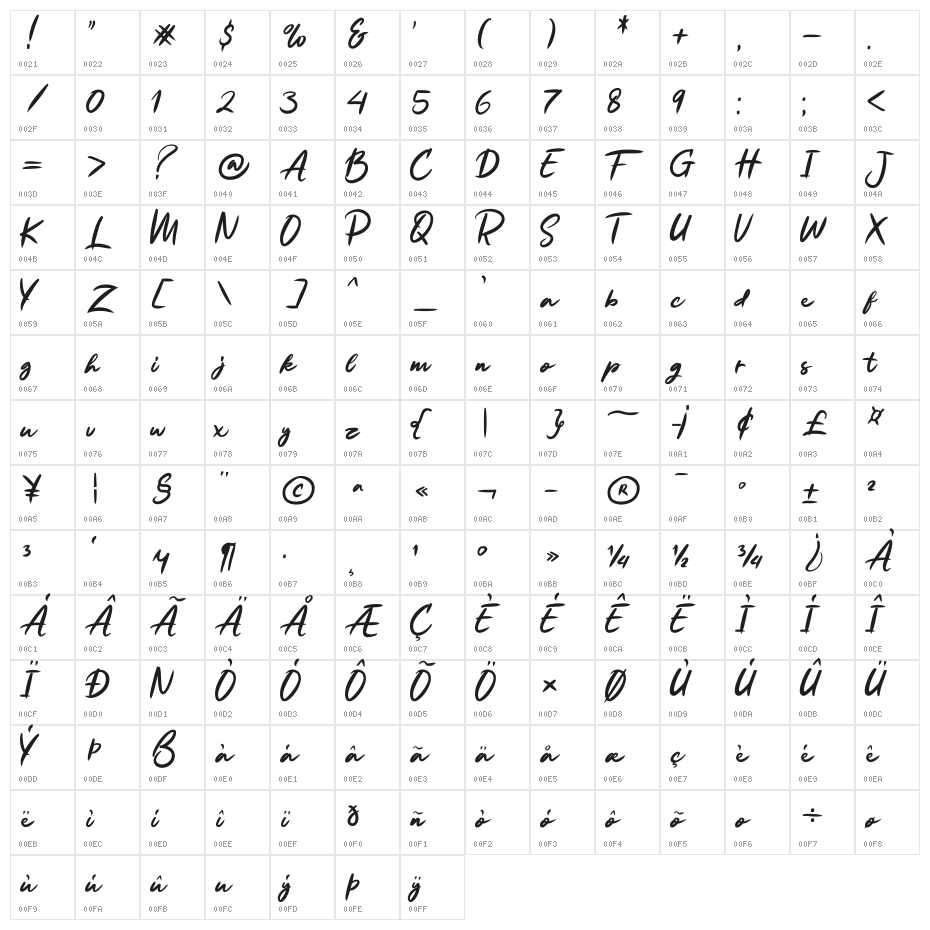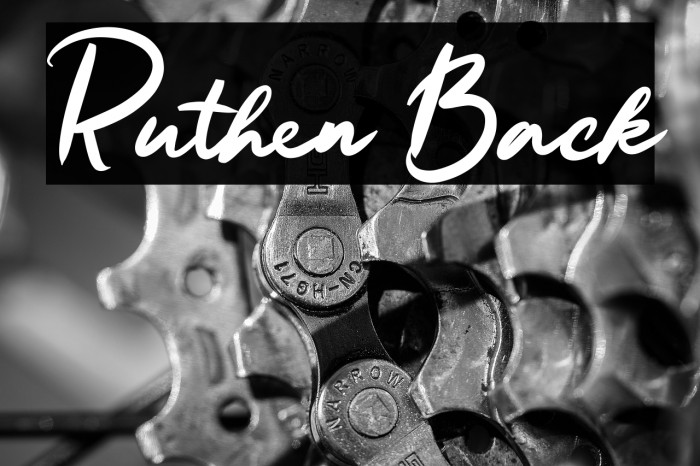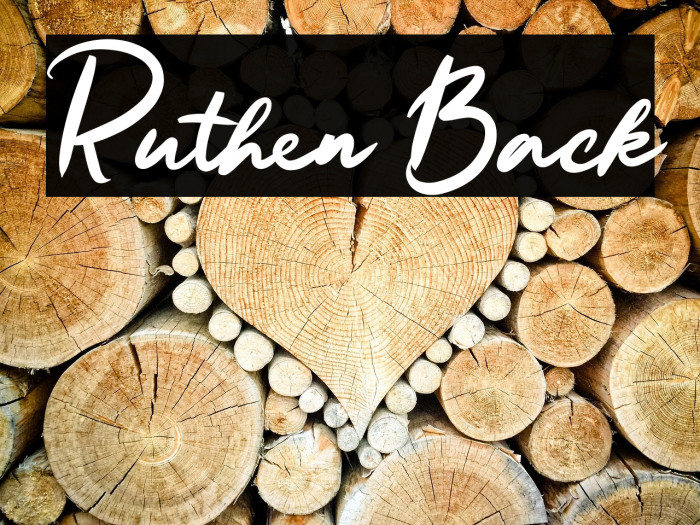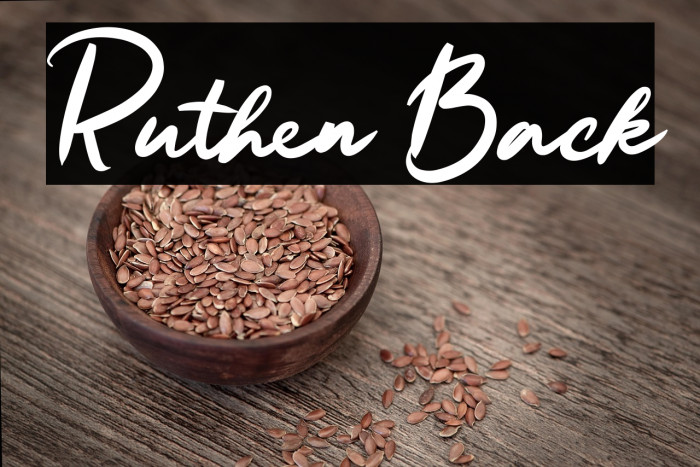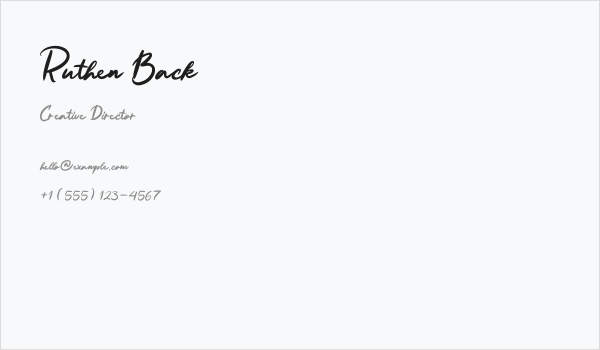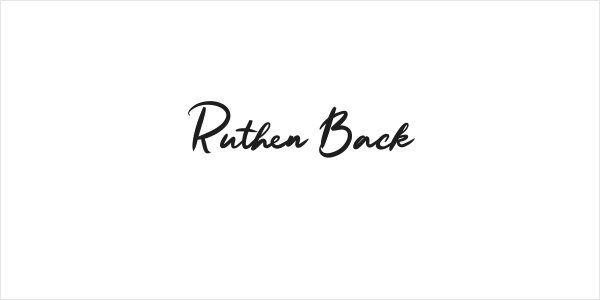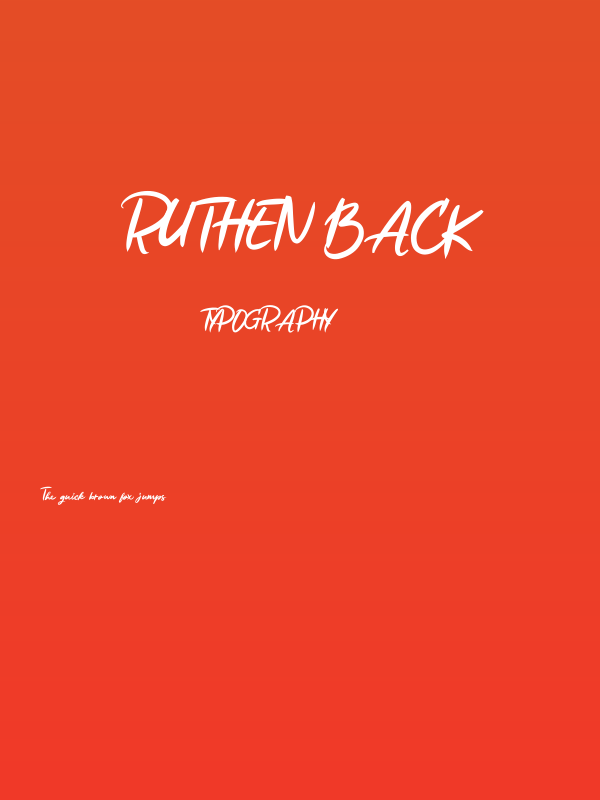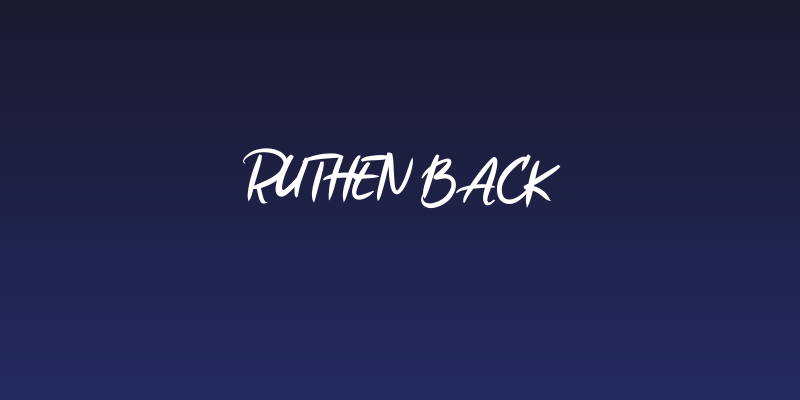
Ruthen Back Font
Ruthen Back Description
This font exhibits a dynamic and energetic script style, characterized by its fluid, cursive strokes and bold presence. The uppercase letters are particularly striking, with a slight slant and a sense of movement that suggests a handwritten quality. The lowercase letters maintain this flowing style, creating a cohesive and harmonious look. Numbers and special characters are designed with the same attention to detail, ensuring consistency across all glyphs. The overall appearance is both elegant and casual, making it suitable for a variety of creative applications.